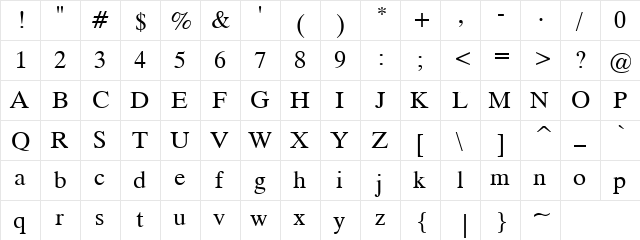
Sazzish Regular
Design Context for Sazzish Typeface
Sazzish is a composed and adaptable typeface that performs quietly and consistently across a wide range of design contexts.